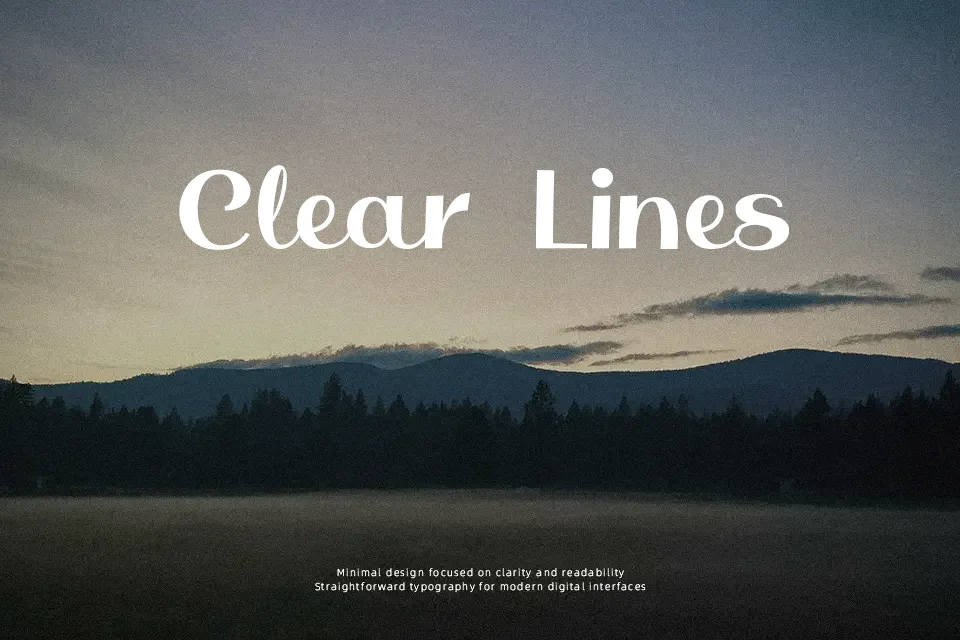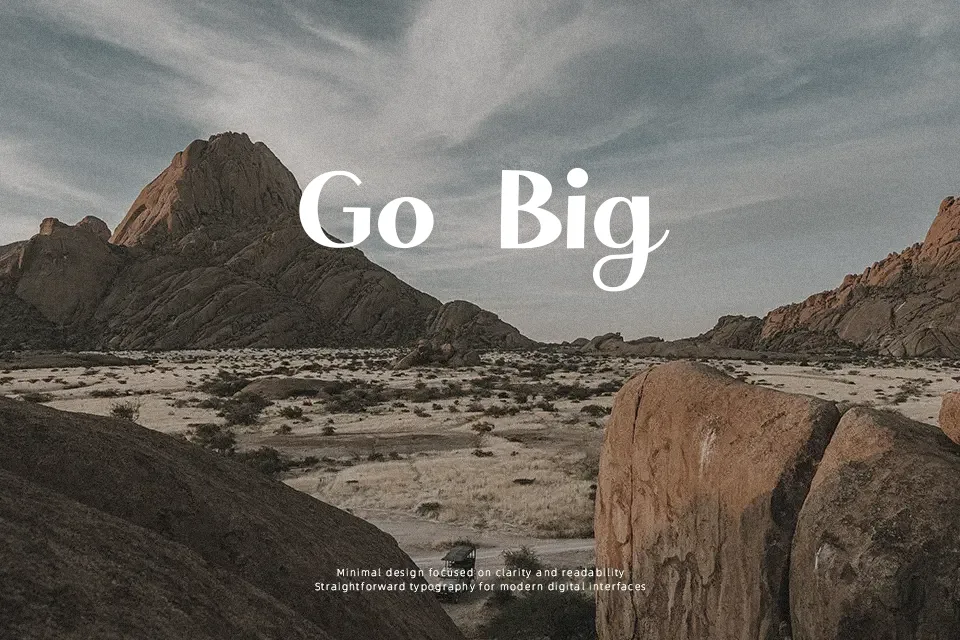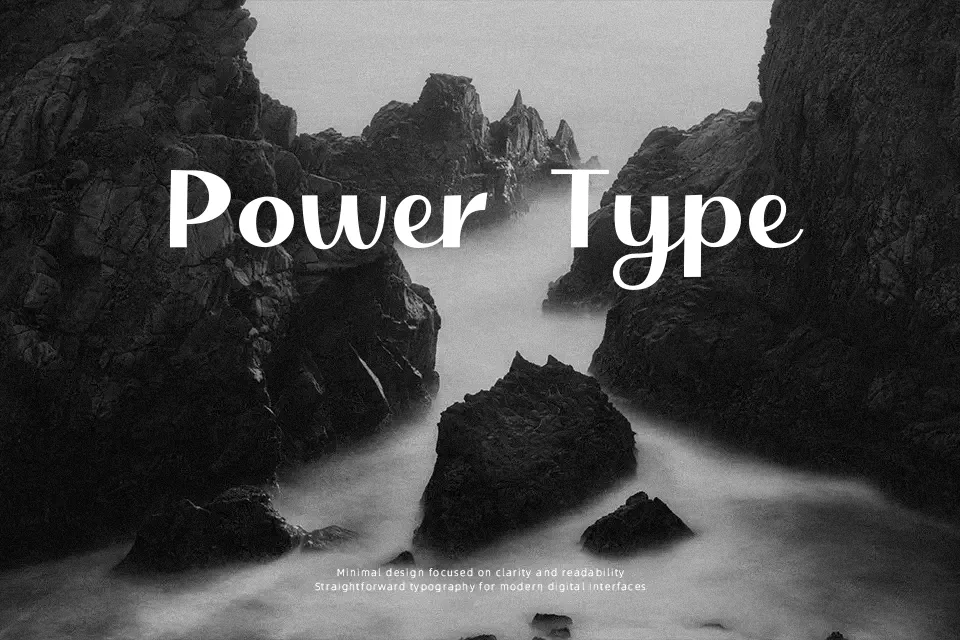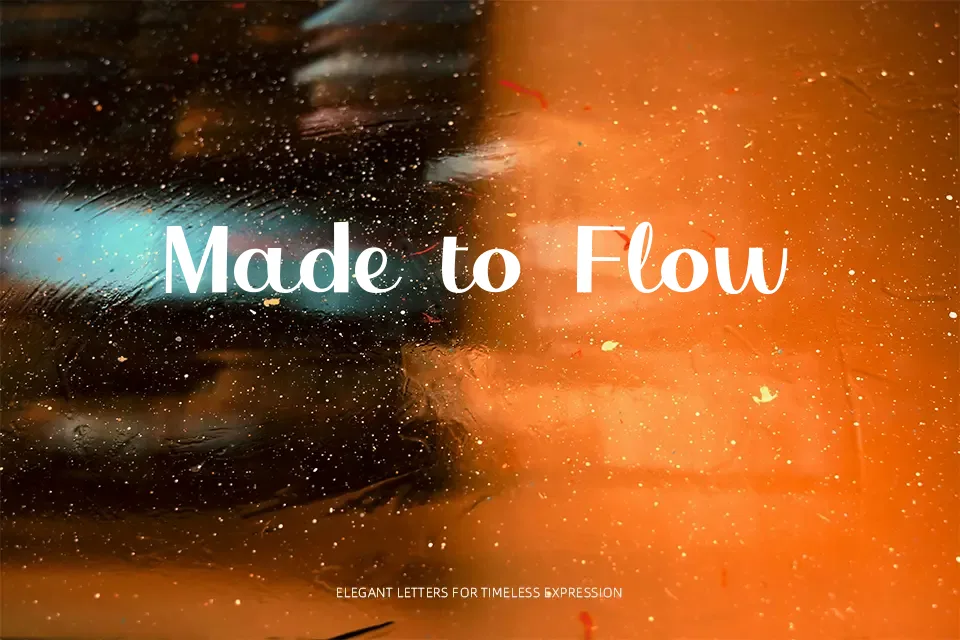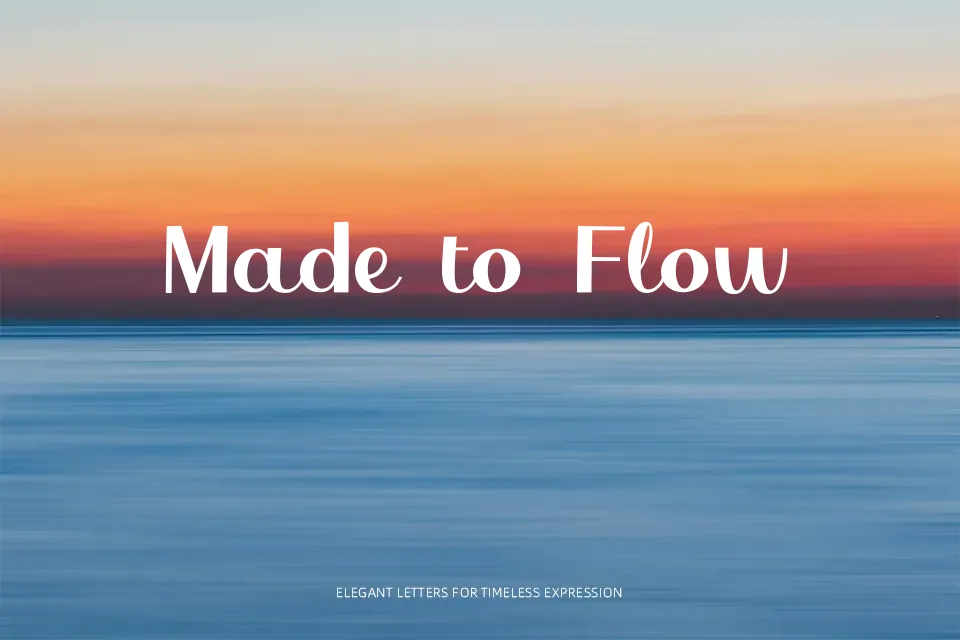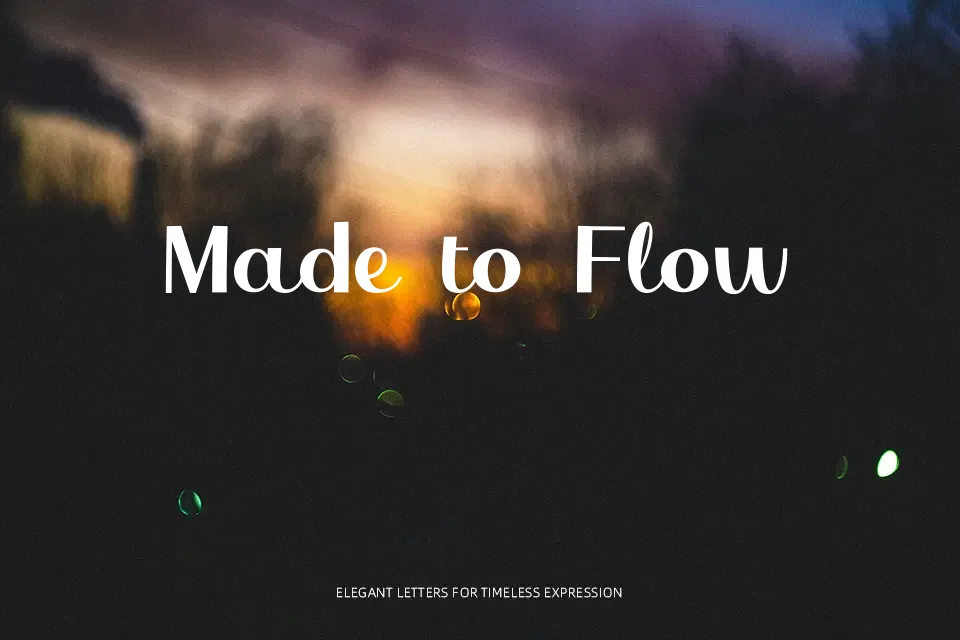
Belmist Font
Designed by The Trending Fonts
Belmist carries a loose, handwritten energy with semi-expanded strokes and a bold weight that commands attention at display sizes. The letterforms lean into a casual-retro sensibility — not quite brush script, not quite print — sitting somewhere between playful and nostalgic. That hybrid quality makes it a natural fit for blog post headers, branded social media graphics, or small-run packaging where character matters more than polish. It works best at large sizes where its quirks read as charm; scale it down to body text and the letterforms lose distinctiveness quickly. With only 94–95 glyphs in a single Regular style, designers needing multilingual support or multiple weights will hit its limits fast. Think of it less as a workhorse and more as a mood-setter — useful when you need a human touch in one deliberate headline.
– Blog and editorial post headers
– Casual logo treatments and wordmarks
– Social media quote graphics
– Packaging labels for indie or handmade products
– Long-form body or paragraph text
– Multilingual or extended character set needs
– Corporate reports or formal business documents
– Designs requiring multiple weight variations
Perfect for branding, editorial, and headline, with a creative and display style.